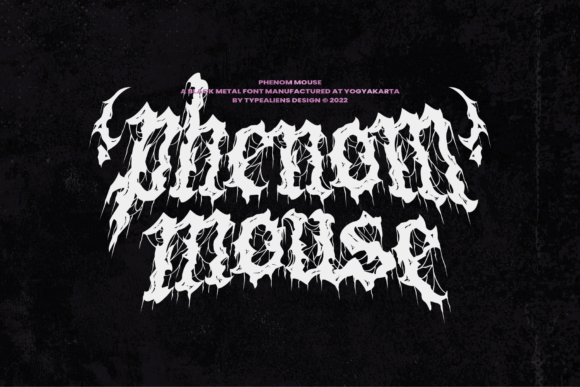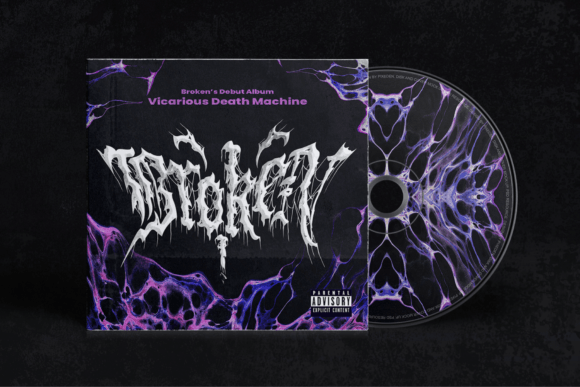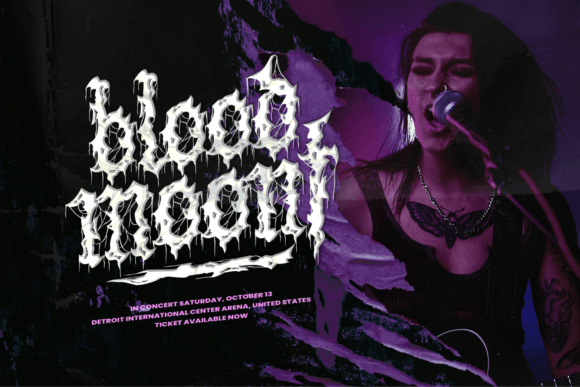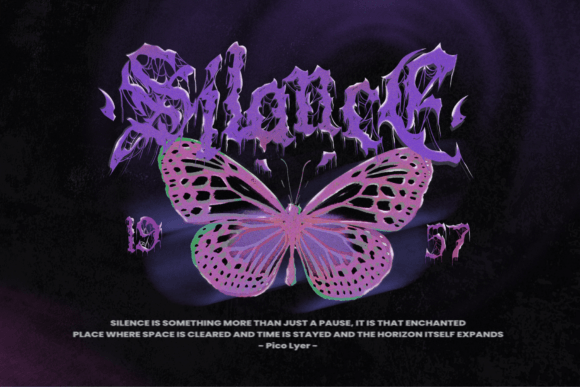
Phenom Mouse Font
About the Phenom Mouse Font
Introducing the Phenom Mouse Font, a beautifully crafted typeface designed to elevate your creative projects. Phenom Mouse is a gothic font that was modified from a blackletter font by adding additions such as roots to produce a unique font, commonly used for metal band logos or underground bands, or band concert posters. This font that looks scary and complicated is not suitable for a paragraph, because it’s actually just a display font. This blackletter development can be categorized into modern fonts.
Phenom Mouse excels in applications demanding strong visual impact: headlines, logos for edgy brands, posters for concerts or dark fantasy art, and packaging for products with a rebellious aesthetic. Its intricate detail makes it unsuitable for body text or UI elements where readability is paramount; long stretches of Phenom Mouse would be visually overwhelming and difficult to read.
The font’s core personality is bold and rebellious. To balance this intensity, consider pairing it with a clean sans-serif like Futura or a sharp geometric sans-serif like Helvetica Neue for contrast. For a softer counterpoint, a simple serif like Garamond or a more modern serif like Lora could provide elegant balance. Avoid pairing it with other highly decorative fonts, as this would create visual clutter.
This gothic-inspired design is ideal for projects targeting a niche audience appreciating darker themes and unconventional aesthetics. Think metal music, horror films, or fantasy-themed products. The font’s aggressive nature makes it inappropriate for projects requiring a friendly or approachable feel.
Phenom Mouse Font Usage Examples
Phenom Mouse Font Example